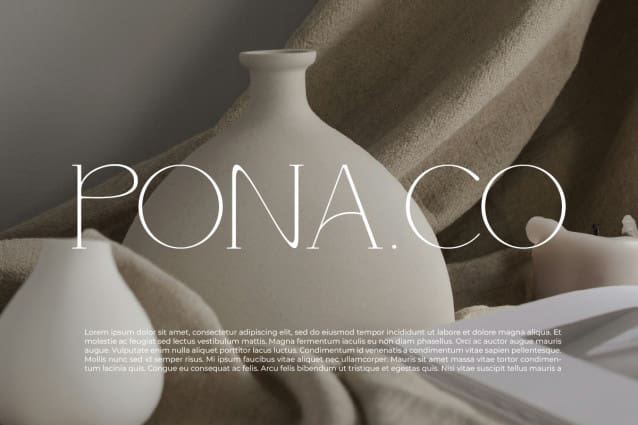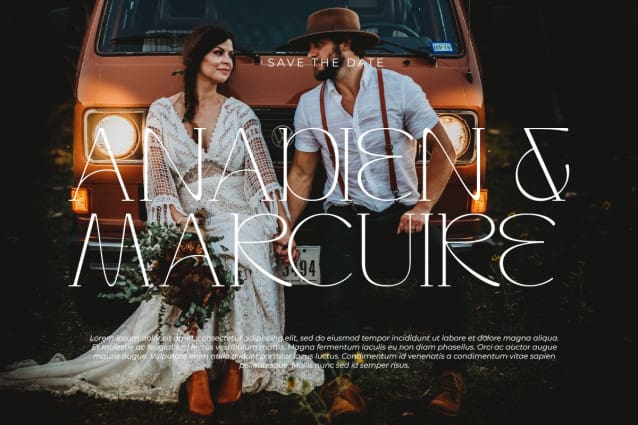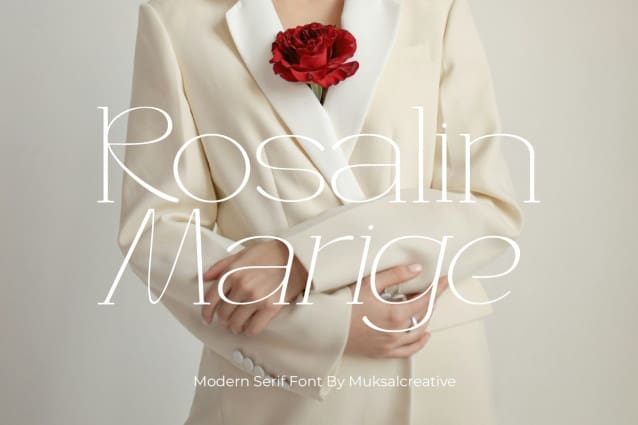
Rosaline Marige Font
Rosaline Marige Font is a modern-style font that blends serif elements with a contemporary touch. With its clean and elegant design, this font offers two main styles: regular and italic. Each letter in the Rosaline Marige font is meticulously crafted to convey a professional and modern impression in any design. The sophistication of this serif font makes it suitable for various design projects, including modern-themed branding logos. With its clarity and readability, RosalineMarige is the perfect choice for enhancing the appearance and impact of any design.